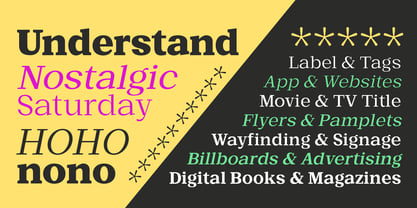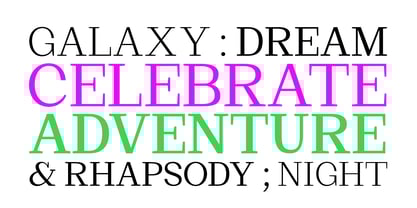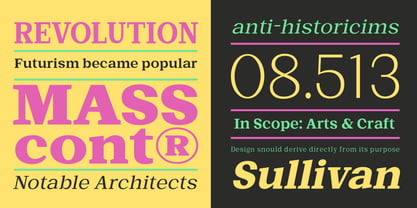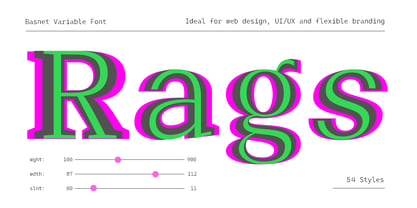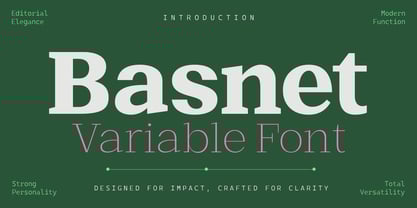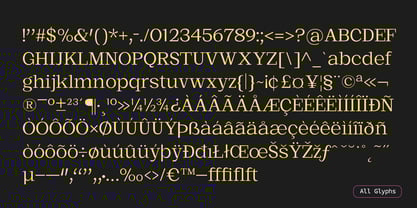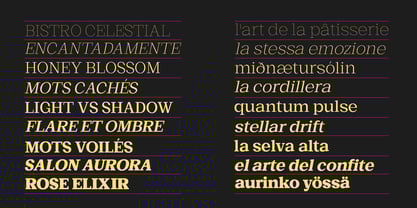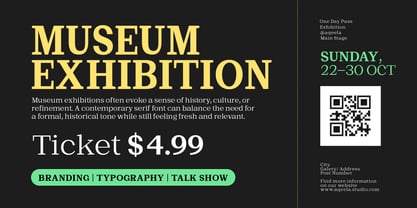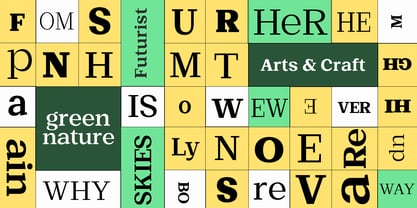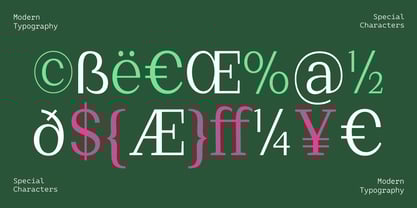
Basnet
The Basnet Font Family was designed by Muhammad Nasir and published by Aqeela Studio. Basnet contains 54 styles and family package options. More about this family
Basnet is a transitional serif typeface that blends classical proportions with contemporary precision. Inspired by the timeless elegance of historic letterforms, it has been meticulously crafted to provide both clarity and gravitas in text-heavy and display contexts alike. The family is available in 9 weights, ranging from Thin to Black, across 3 widths — allowing for exceptional typographic versatility. It also includes a fully-featured variable font, giving designers fine control over weight and width in responsive or animated layouts. In total, the family comprises 54 individual fonts. Designed to embody both authority and readability, Basnet Serif features strong vertical stress, pronounced serifs, and a moderate contrast between thick and thin strokes. Its uppercase characters project solidity and structure, while the lowercase set offers a balanced rhythm for extended reading. The typeface maintains a professional tone while remaining visually engaging, making it particularly well-suited for editorial work, advertising publishing, corporate identity, and luxury branding.